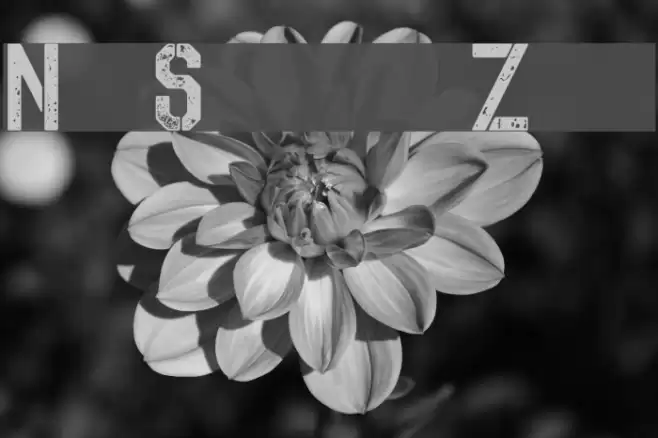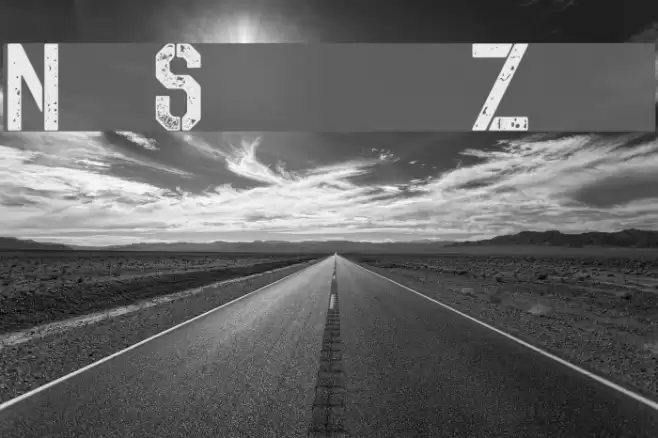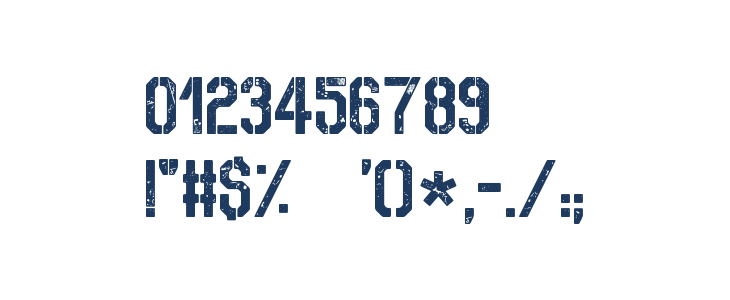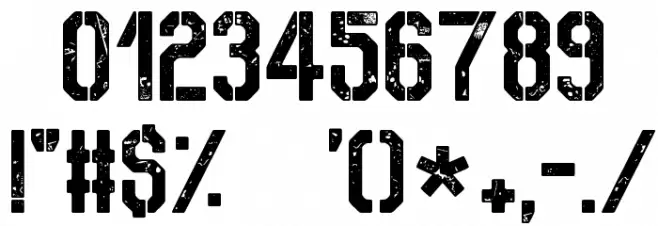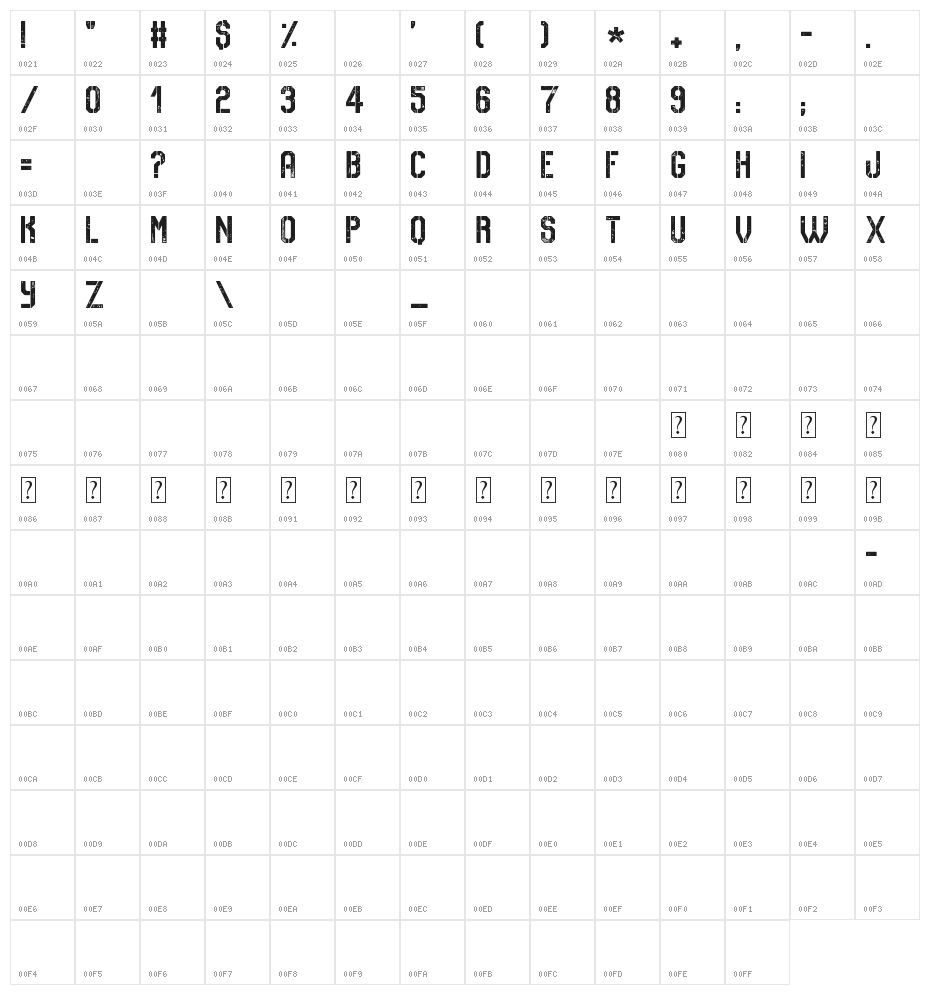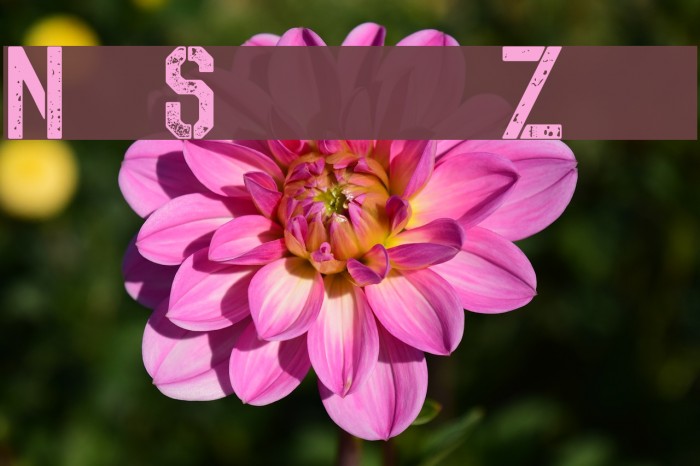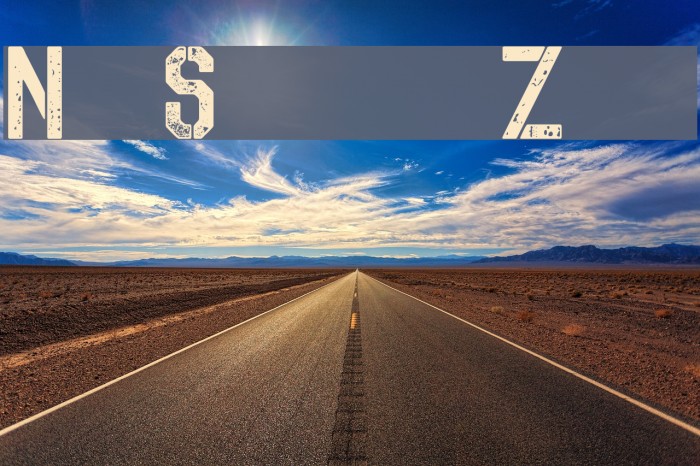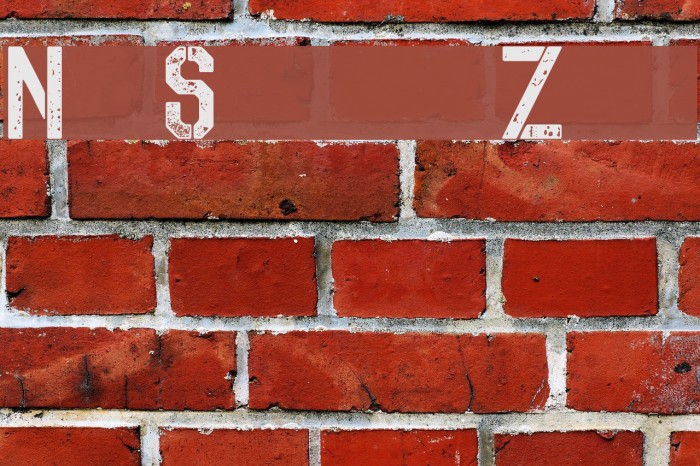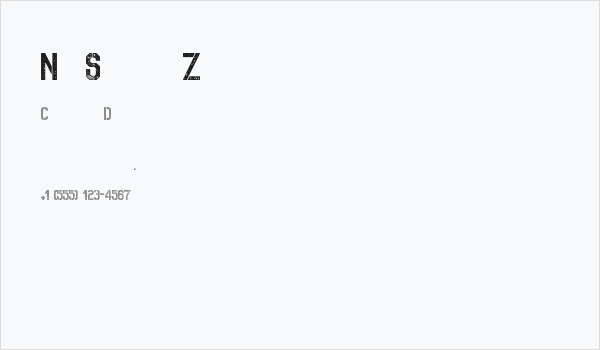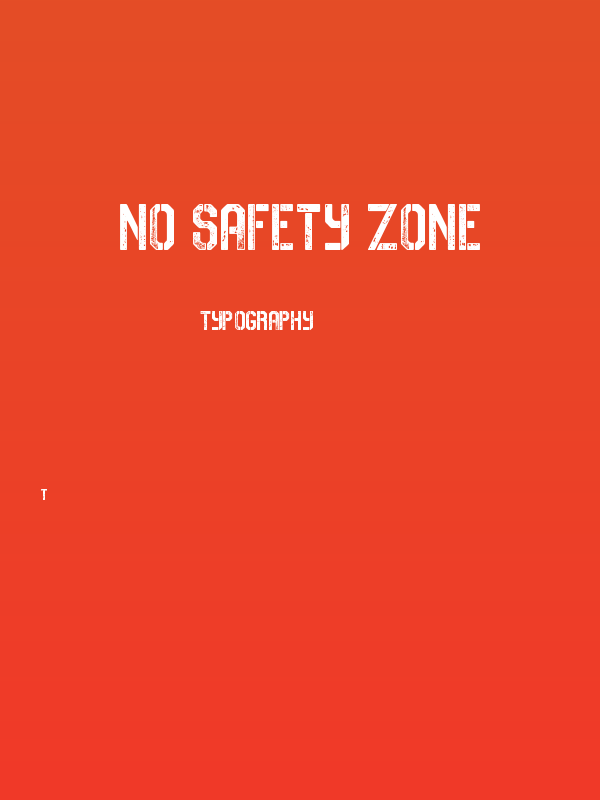
No Safety Zone Font
No Safety Zone Description
This font features a bold, distressed style with a stencil-like appearance. The characters are uppercase and exhibit a rugged, worn texture that gives them a gritty, industrial feel. The design is reminiscent of military or construction stencils, with sharp edges and a blocky structure. The numbers and special characters maintain this consistent, distressed look, making the font suitable for projects that require a strong, impactful visual presence. The overall aesthetic is both modern and vintage, capturing a sense of toughness and durability.
A bold, distressed stencil font with a rugged, industrial feel from Uncategorized fonts.
- Proposed Projects: Ideal for posters, signage, branding, and any design needing a strong, industrial aesthetic.
- Overall Style: Industrial, Vintage